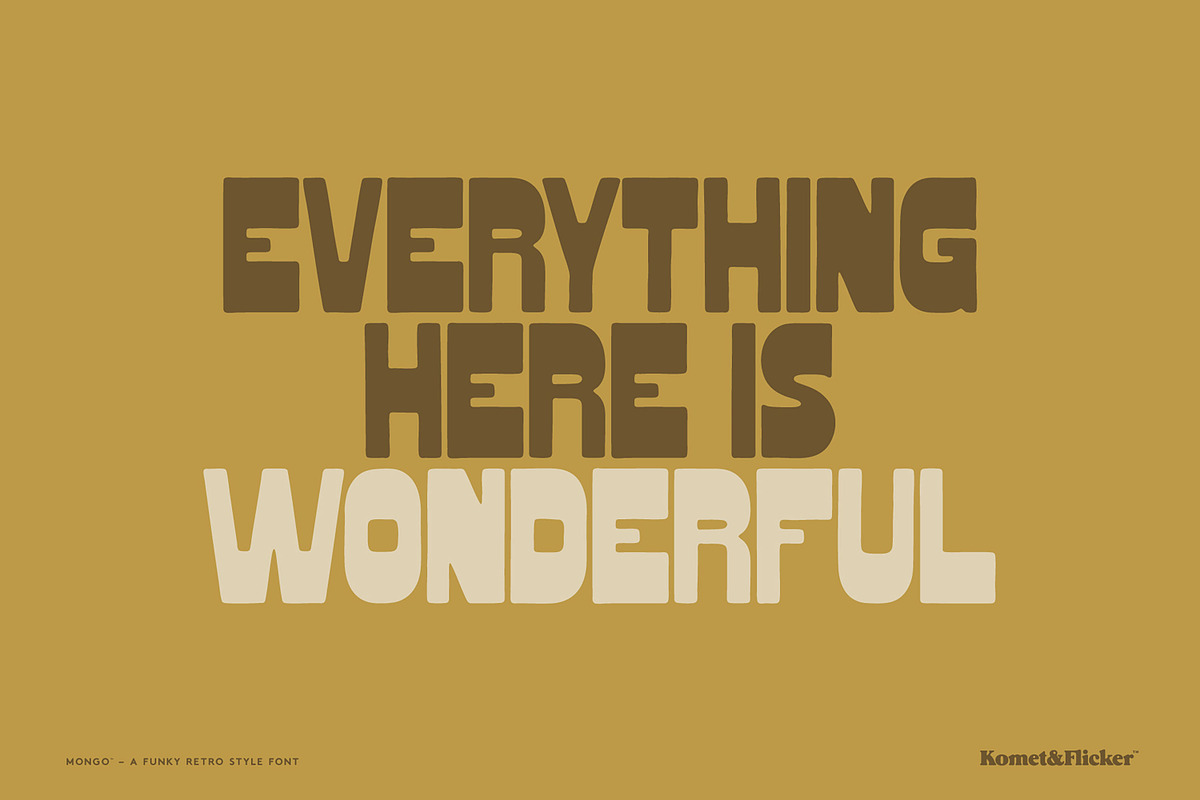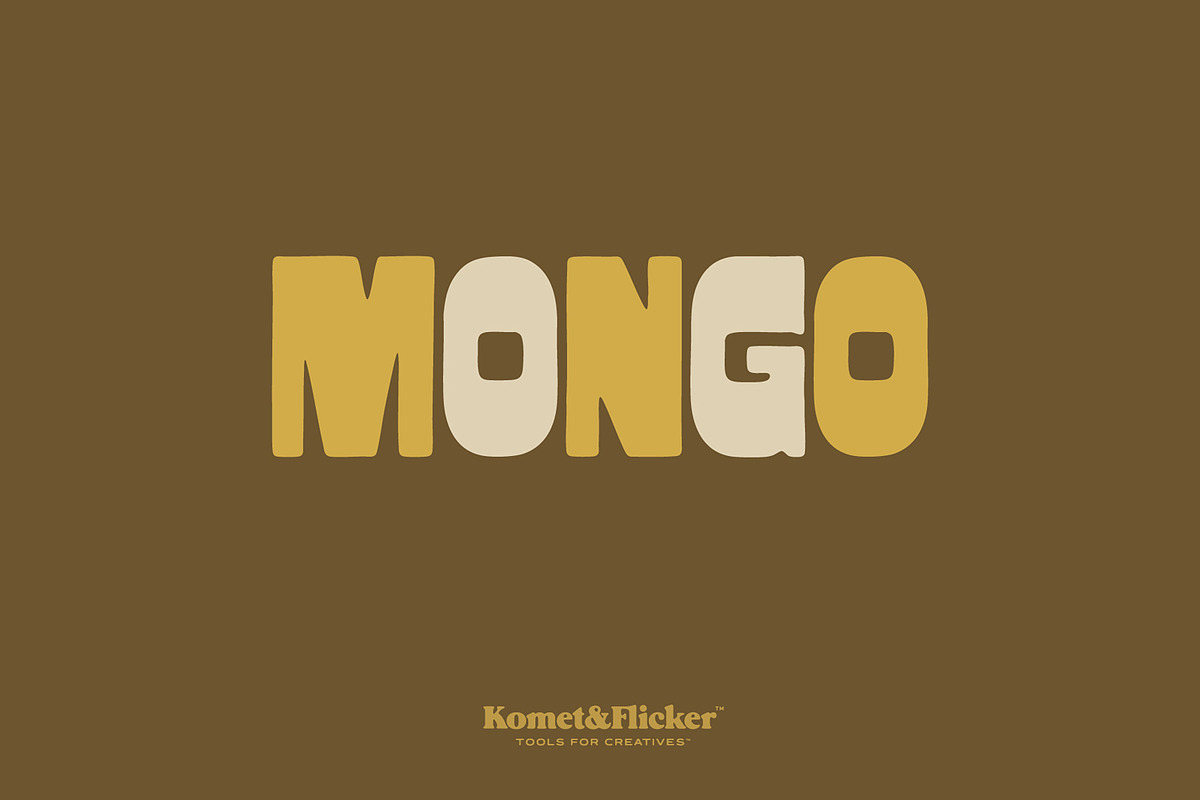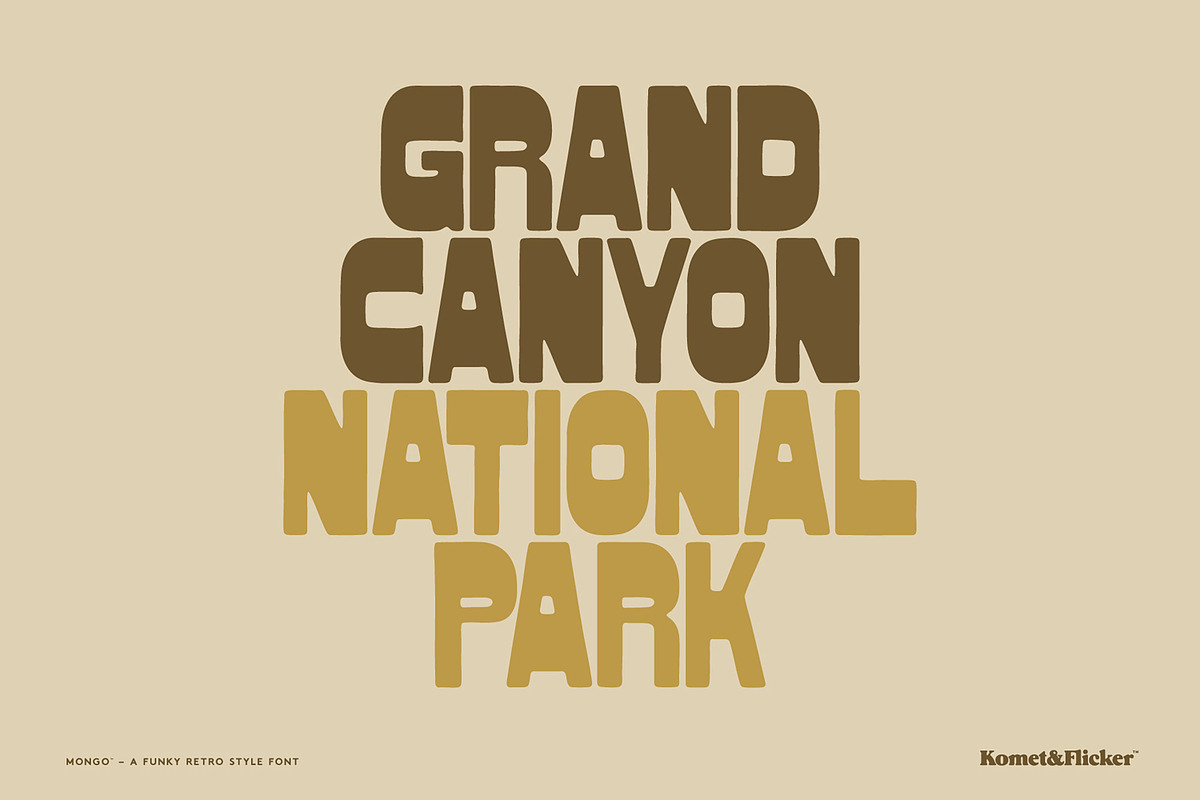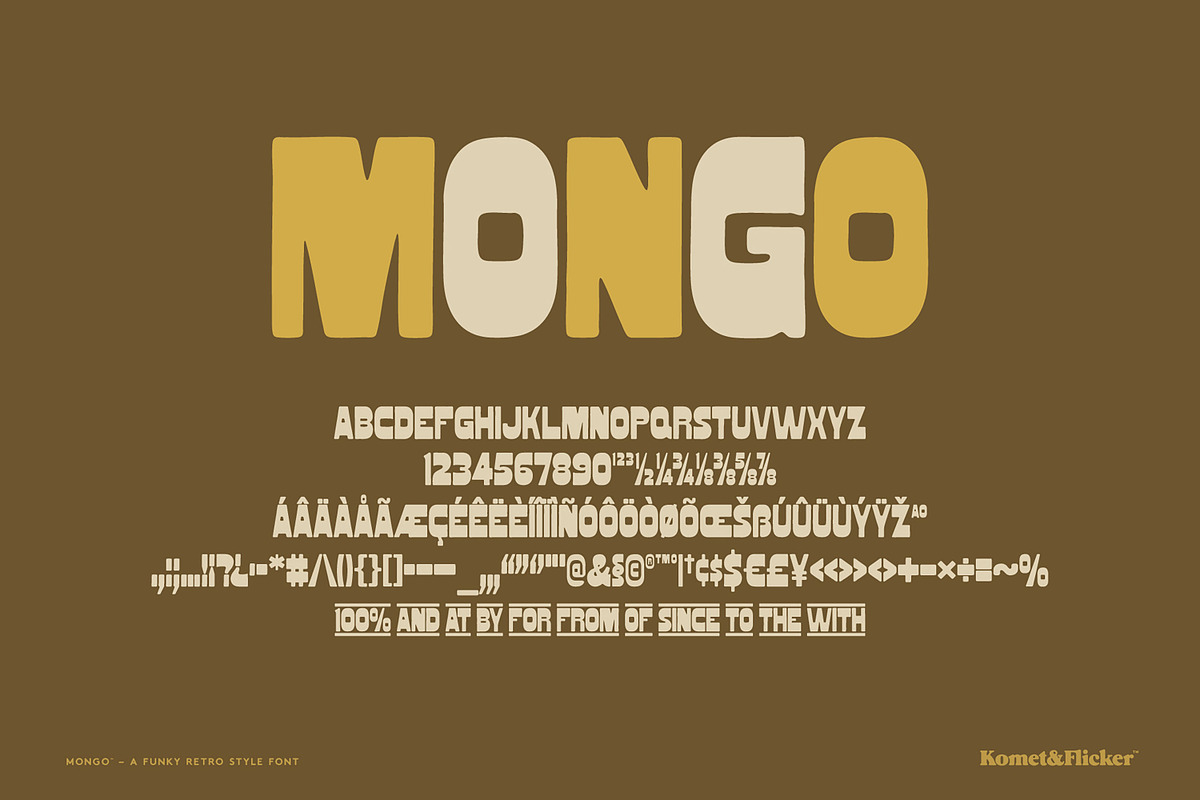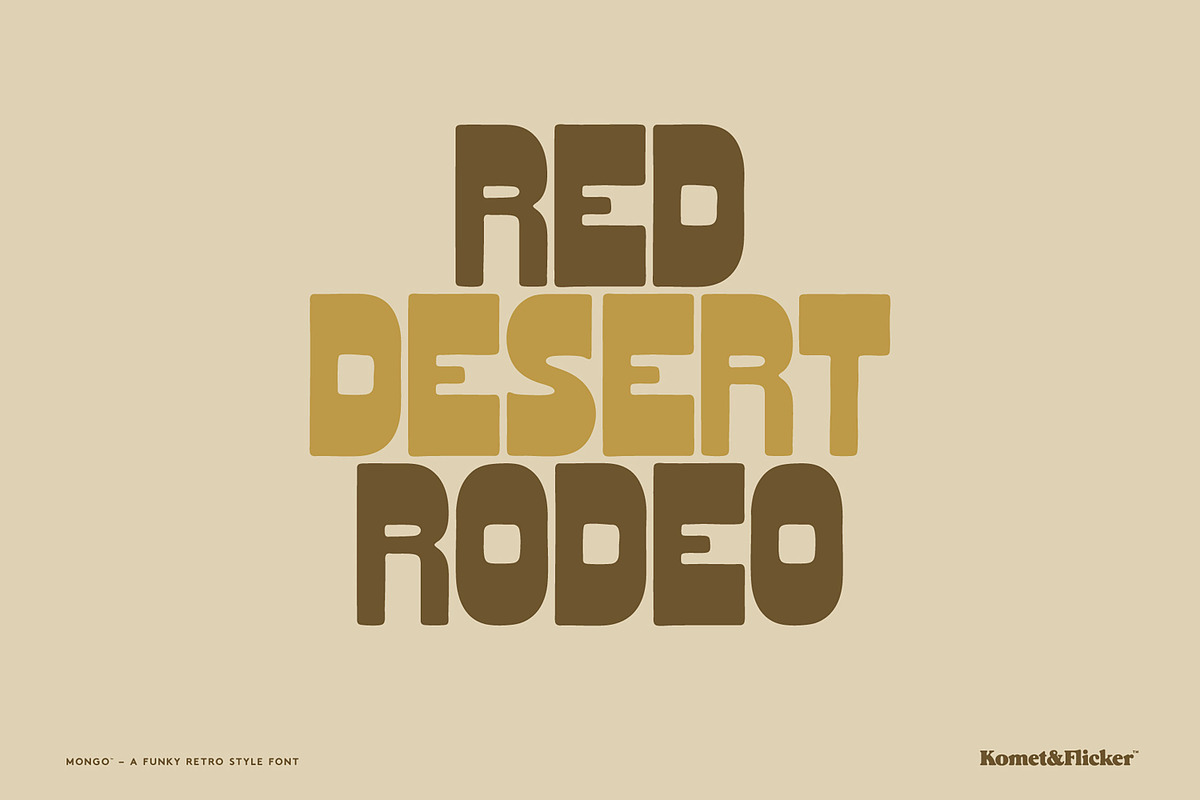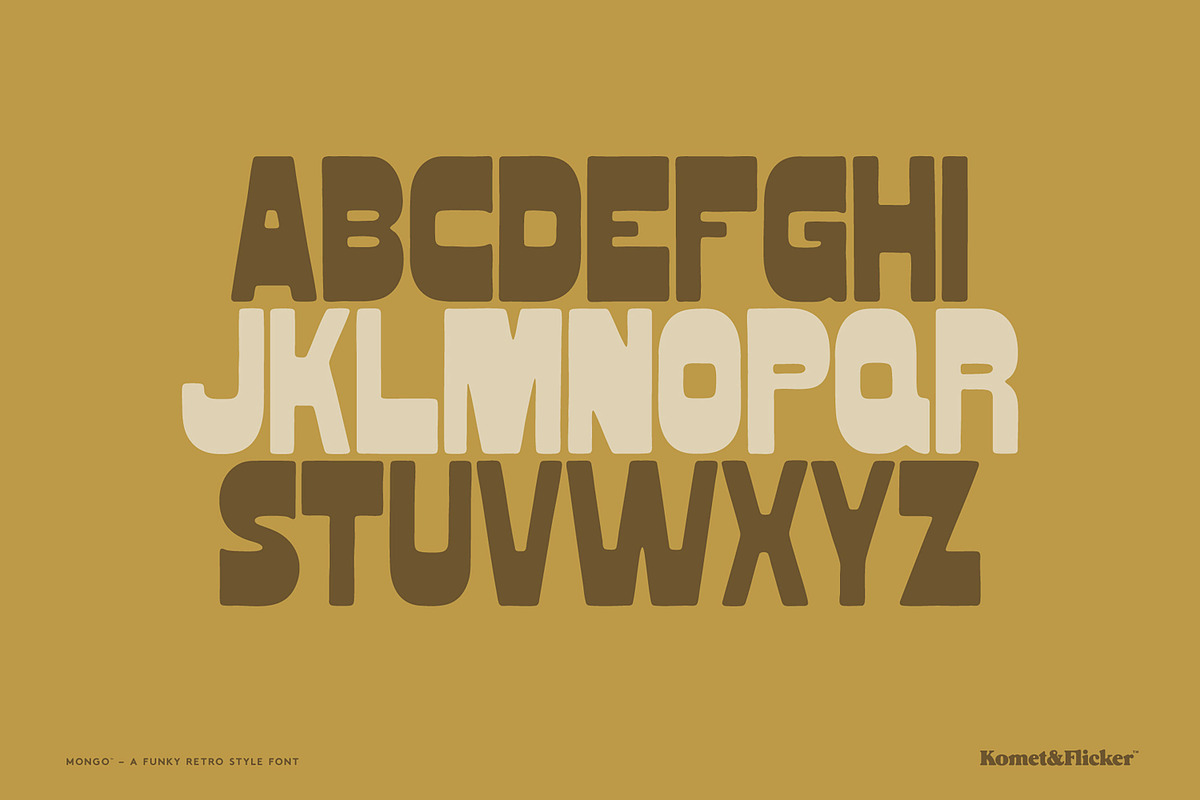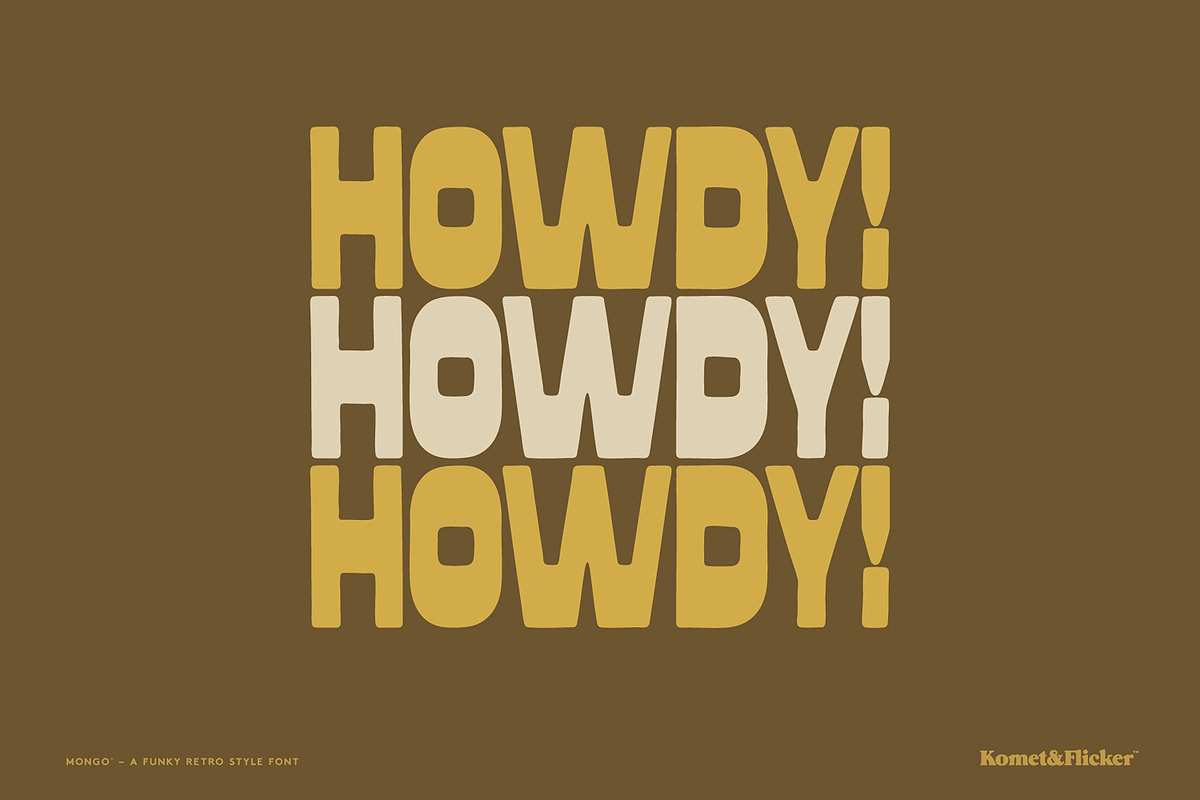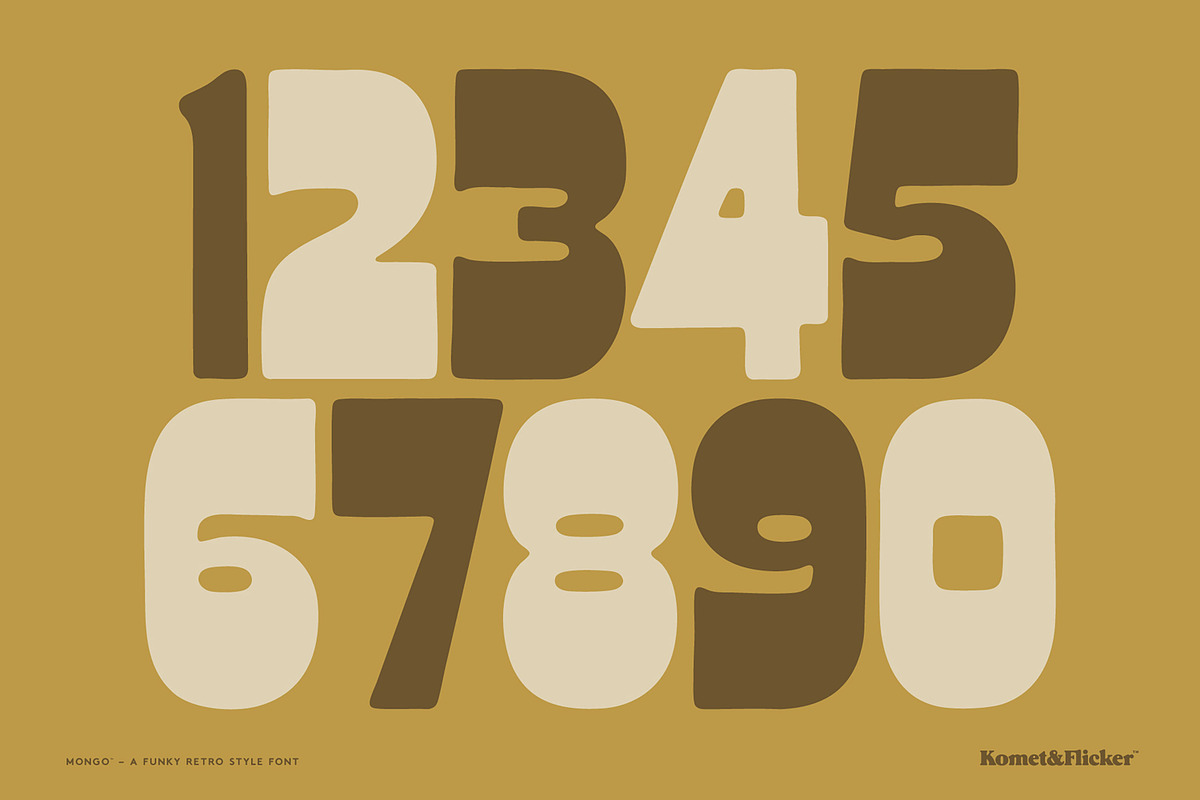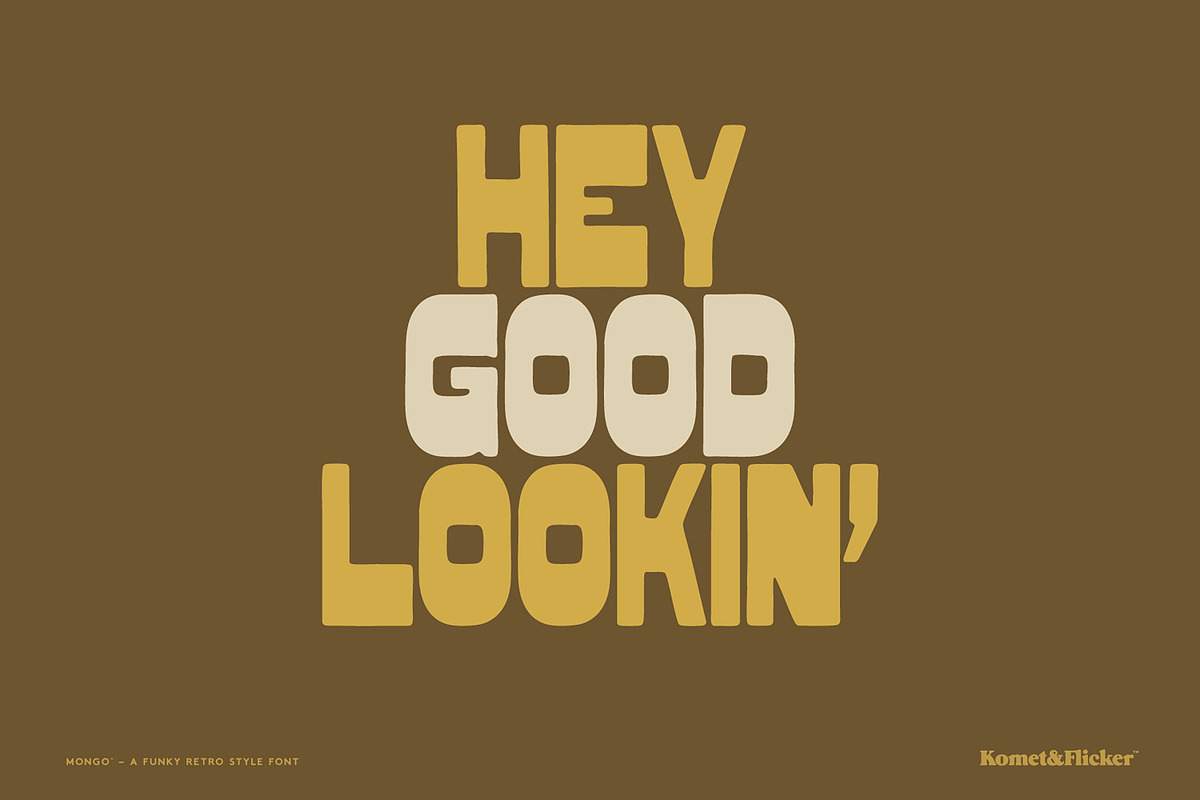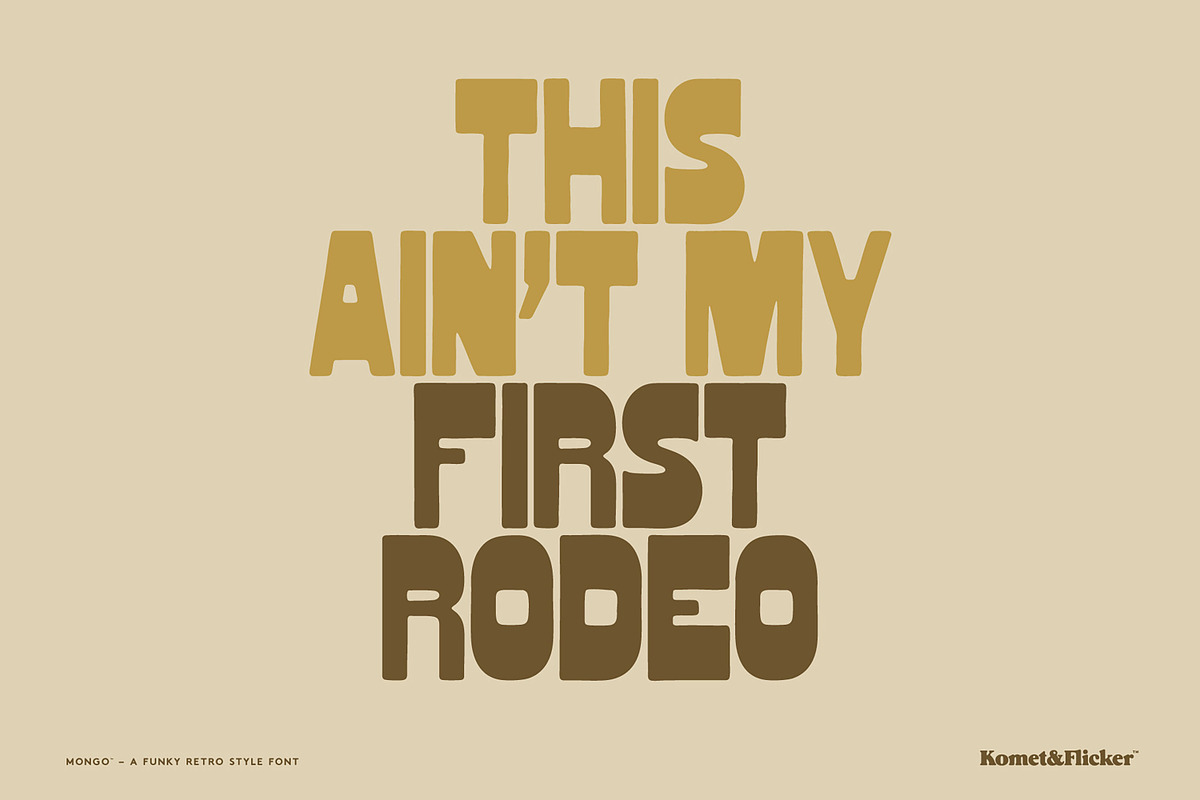
MONGO
Inspired by mid-century showcards, MONGO is a retro-styled all-caps display font that channels vintage Americana. Whether it’s old-school packaging, roadside signage, or groovy 70s graphics, it delivers chunky confidence with playful attitude.
MONGO’s thick letterforms give it a bold graphic presence that grabs attention. It’s nostalgic without feeling dusty – fun, fearless, and ready to headline everything.
THIS FONT INCLUDES
Full A-Z basic uppercase latin characters
Select European specific characters
Numbers, punctuation, and select symbols
Pre-made common fractions
Set of 11 custom connecting word glyphs